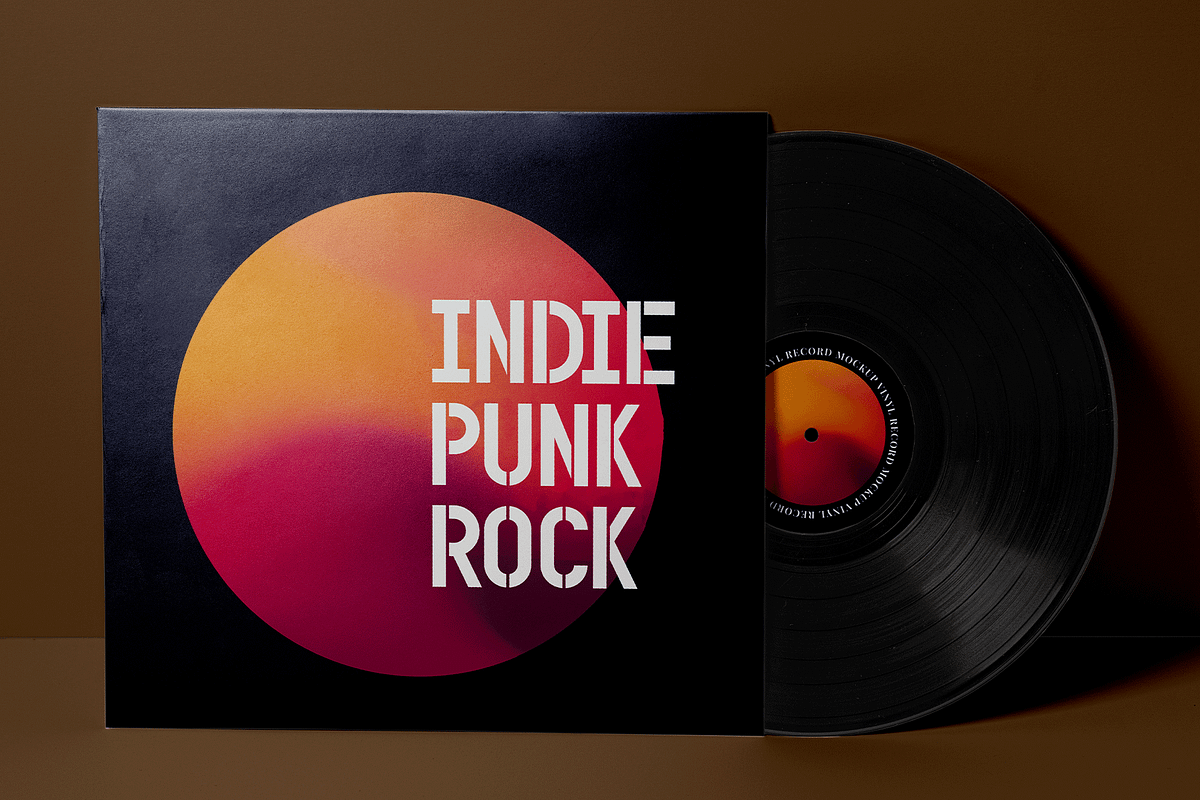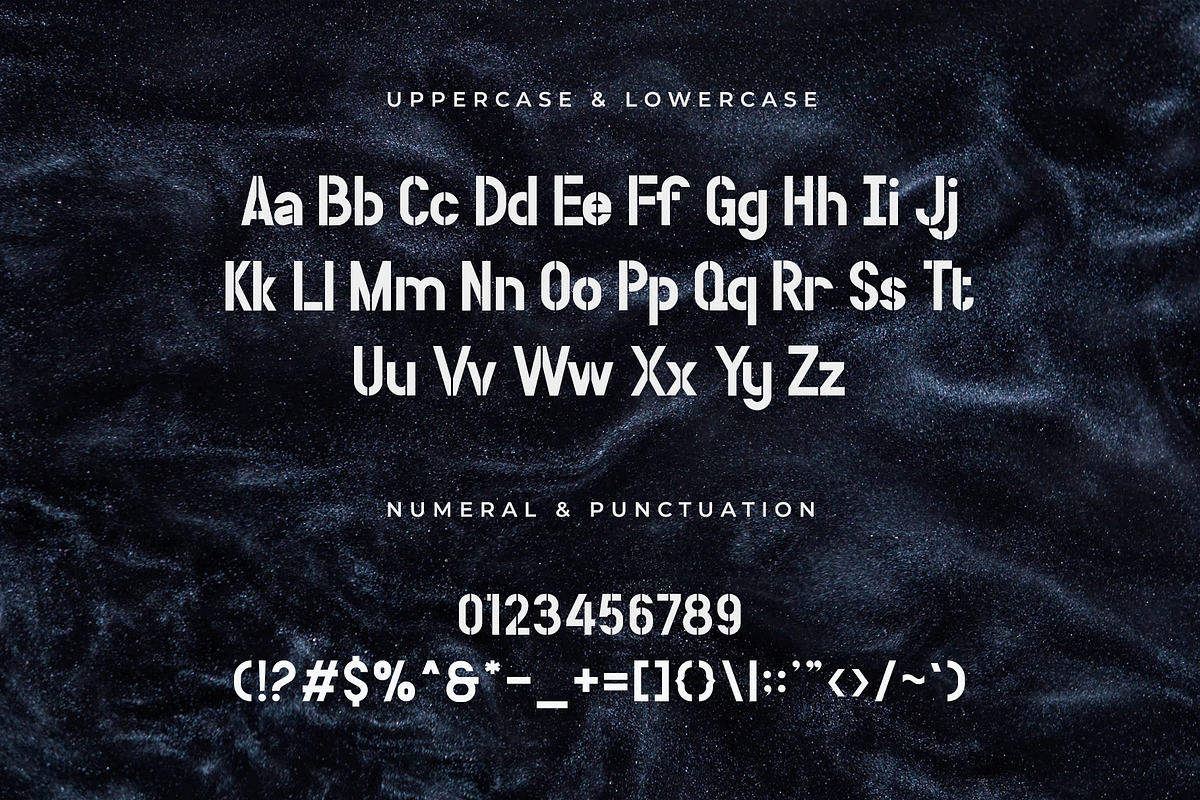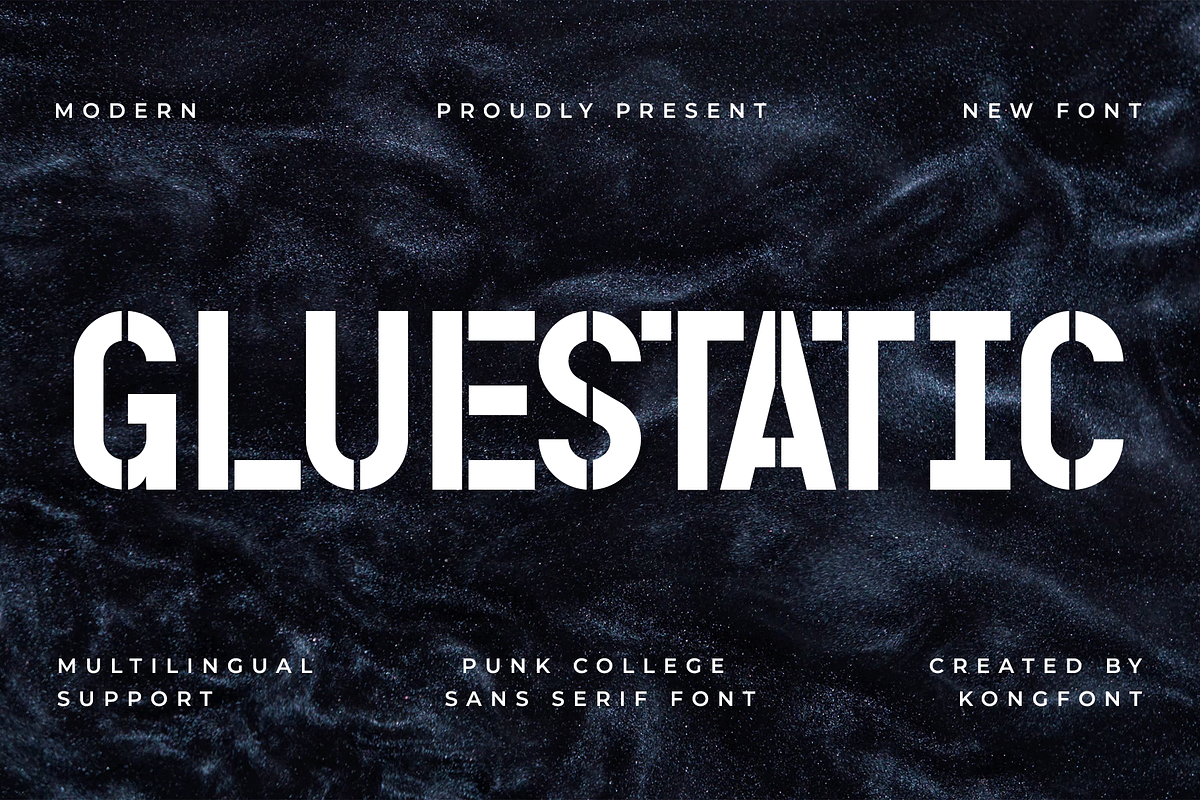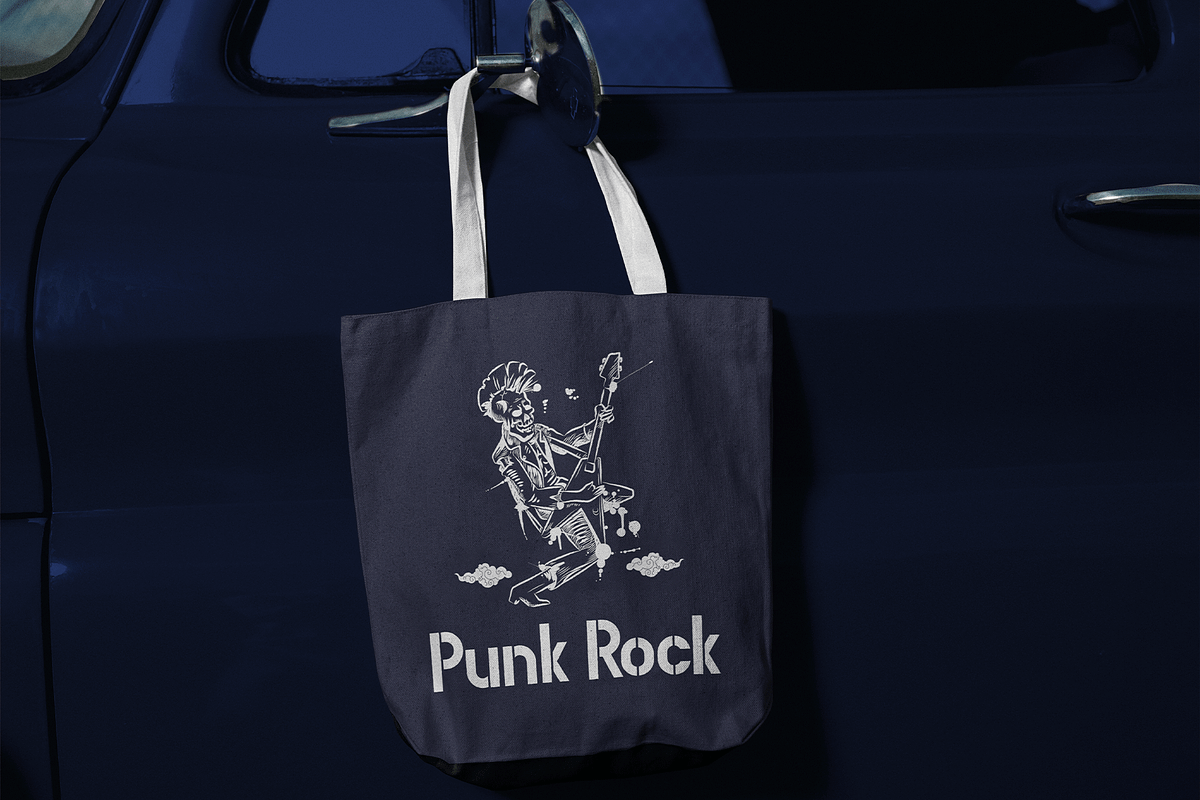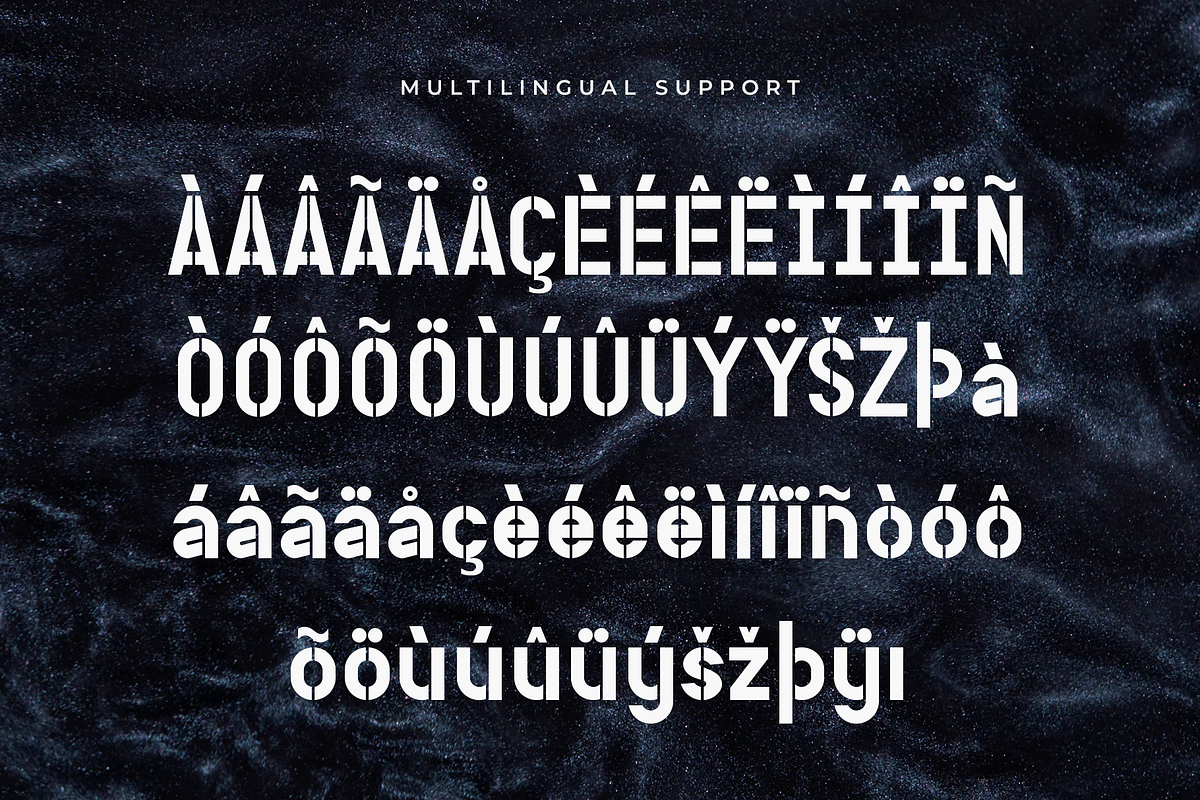
Gluestatic – Punk College Sans Serif
Gluestatic – Punk College Sans Serif Typeface
Introducing Gluestatic, a bold punk college sans serif font that fuses rebellious energy with academic grit. Designed with striking letterforms and a confident stance, this typeface delivers a perfect blend of retro varsity vibes and edgy street style.
Gluestatic is ideal for apparel designs, music posters, band merchandise, sports branding, editorial layouts, and anything that needs a punch of punk attitude with a collegiate feel. Its clean yet raw sans serif structure ensures maximum readability while standing out with a distinctive edge.
With uppercase, lowercase, numerals, punctuation, and multilingual support, Gluestatic is ready to power up your typography with a defiant personality that makes a bold statement in every context.
Whether you're channeling campus culture or punk rebellion, Gluestatic is the typeface that gets noticed.